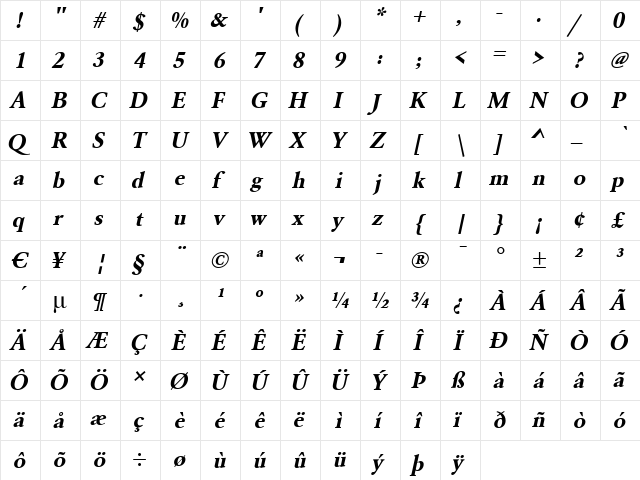
LionelBecker Bold Italic
Design Context for LionelBecker Typeface
LionelBecker offers clean, dependable letterforms without strong stylistic allegiance, making it a practical choice for designers who need flexibility. The slanted form adds forward momentum and visual energy. The heavy weight commands attention and anchors typographic hierarchies.
Pro Tip: Use LionelBecker for emphasis, pull quotes, and subheadings where its slanted energy can add rhythm to the layout.